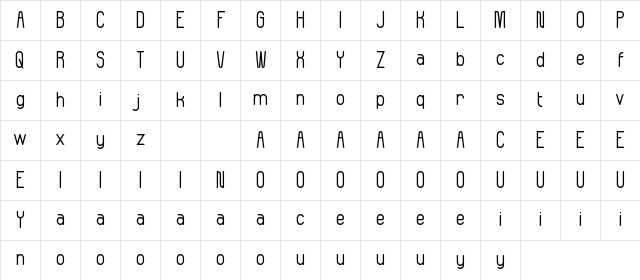
Neitherly Demo Sans is a composed and adaptable typeface that performs quietly and consistently across a wide range of design contexts.
Pro Tip: Use Neitherly Demo Sans in both headline and body roles to test its range before committing to a single application.